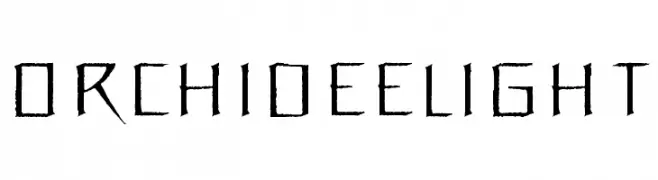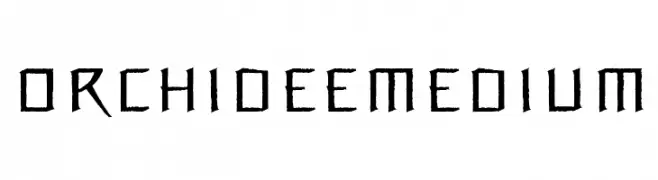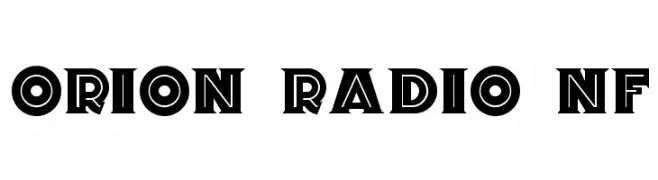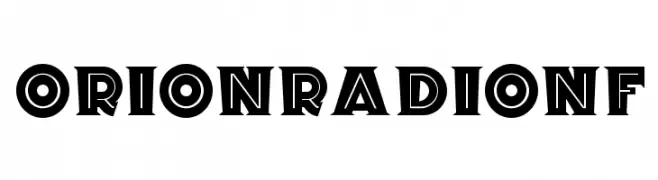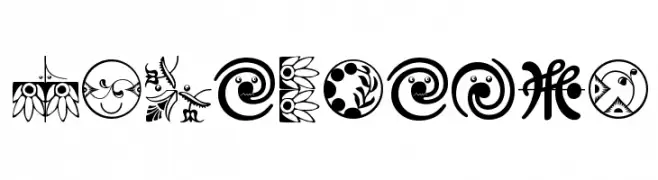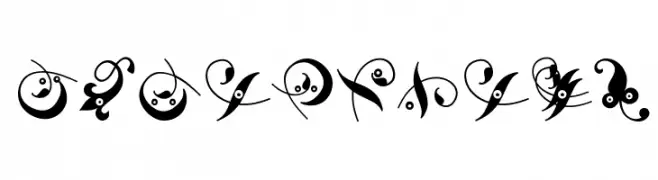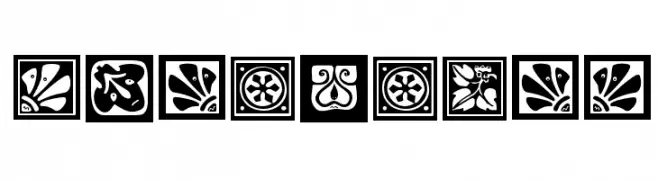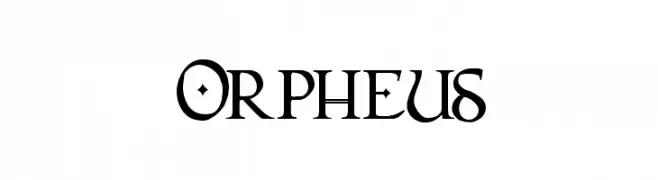
A modern, edgy font with sharp, angular strokes and a bold appearance.
A bold, edgy font with a distressed, hand-drawn appearance.
A bold, vintage-inspired font with high contrast and geometric shapes.
A bold, retro-inspired font with geometric shapes and decorative elements.
Ornamental dingbat font with floral, abstract, and whimsical motifs.
A whimsical and artistic decorative font featuring abstract, face-like shapes.
A decorative font with intricate ornamental designs in square frames.
An elegant and decorative font with classic, intricate design elements.